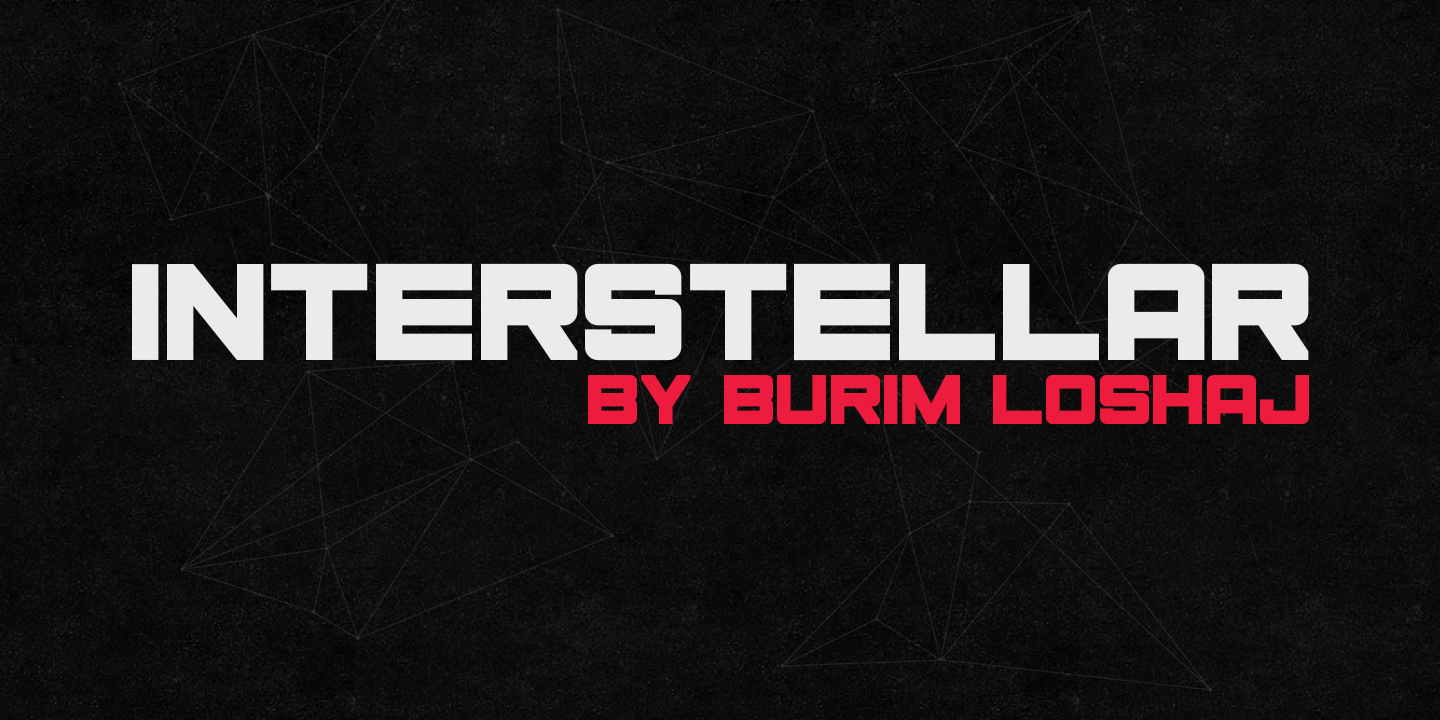
Interstellar Font is perfect for space exploration branding, science fiction movie titles, astronomical research communications, cosmic-themed gaming interfaces, planetarium exhibitions, aerospace industry marketing, stellar photography projects, and galactic adventure applications. This cosmic typeface brings interstellar magnificence, space-age sophistication, and cosmic wonder to any project celebrating the infinite mysteries of space exploration and the awe-inspiring beauty of the universe beyond our world.
What makes Interstellar Font exciting is its extraordinary ability to capture the vastness of space through letterforms that seem to travel across galaxies with stellar grace and cosmic precision. The font features expansively designed character shapes with interstellar proportions, cosmic spacing that creates infinite visual depth, and stellar details that evoke the majesty of distant galaxies and the technological marvel of space exploration. Its cosmic character embodies humanity's eternal quest to explore the stars and understand our place in the universe, making it perfect for projects that want to communicate wonder, discovery, and the inspiring vision of interstellar travel and cosmic exploration.
The Interstellar Font family typically includes multiple weights with cosmically designed uppercase and lowercase letters, stellar numerals, and comprehensive punctuation marks that maintain the font's space-age sophistication and galactic appeal. The design emphasizes cosmic grandeur while providing practical typography options for contemporary space-themed and scientific communication applications that require both otherworldly character and functional readability.
Whether you're creating space exploration brand identities or developing cosmic-themed marketing materials, Interstellar Font Free Download offers unmatched cosmic authenticity and stellar appeal. This typeface excels in applications where its galactic character can communicate the wonder of space exploration and scientific discovery. Its cosmic aesthetic makes it particularly effective for space agencies, science museums, and technology companies that want to associate with exploration and cosmic advancement. The font's stellar presence helps establish visionary connections while ensuring memorable recognition through typography that celebrates the limitless potential of Interstellar Font Free Download space exploration and cosmic discovery.